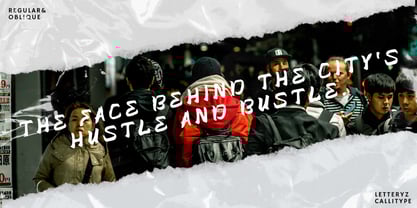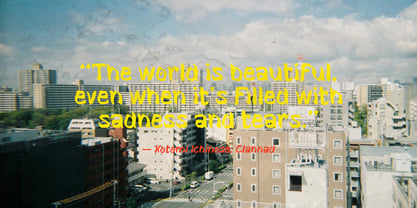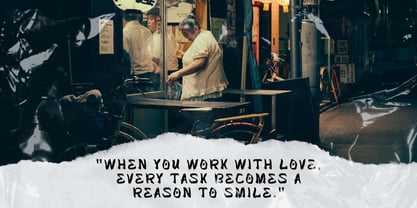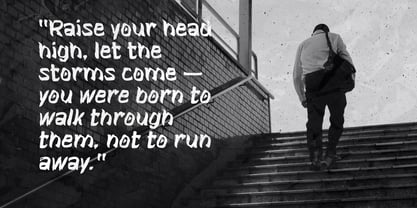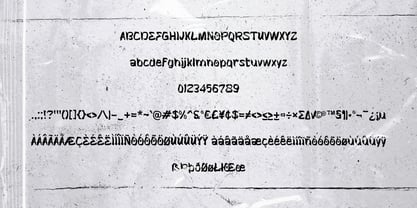
Kurotaku
by Letterytz CalliType
The Kurotaku Font Family was designed by Wahyu Eka Prasetya, Dian Angga Marytama and published by Letterytz CalliType. Kurotaku contains 2 styles and family package options. More about this family
Bold. Energetic. Unapologetically Handcrafted.
Introducing Kurotaku, a dynamic typeface that fuses the timeless spirit of Japanese artistry with raw, handcrafted energy. With a brush-inspired style and organic strokes, Kurotaku captures attention effortlessly — ideal for branding, packaging, posters, apparel, and bold editorial designs.
Kurotaku Regular delivers a powerful yet refined aesthetic, while Kurotaku Oblique adds a daring slant for designs that demand a sense of motion and intensity. Whether you want to convey strength, creativity, or authenticity, Kurotaku brings an unmistakable character to every project.
Features:
• Authentic handcrafted brush style
• Two expressive styles: Regular & Oblique
• Full uppercase & lowercase set
• Numbers, punctuation, and multilingual support
• Perfect for bold headlines, logos, merchandise, and creative projects
Bring your designs to life with the bold spirit of Kurotaku — a true celebration of handcrafted passion and modern edge.
Designers: Wahyu Eka Prasetya, Dian Angga Marytama